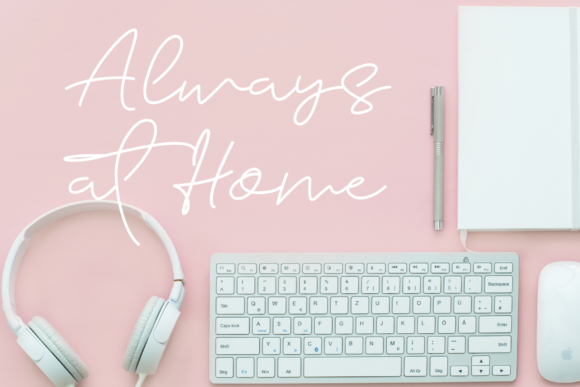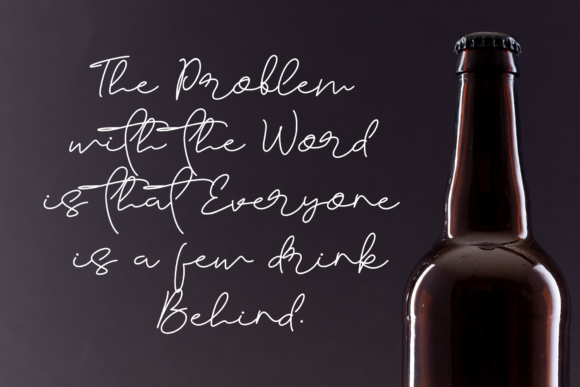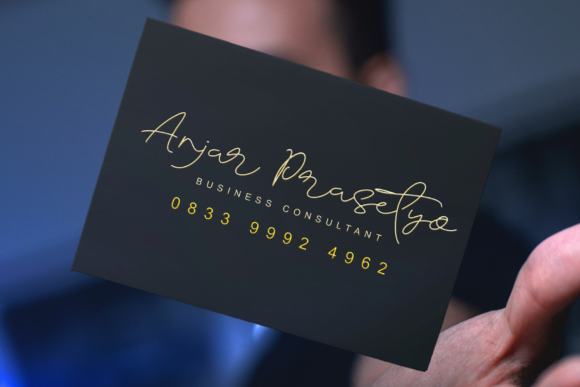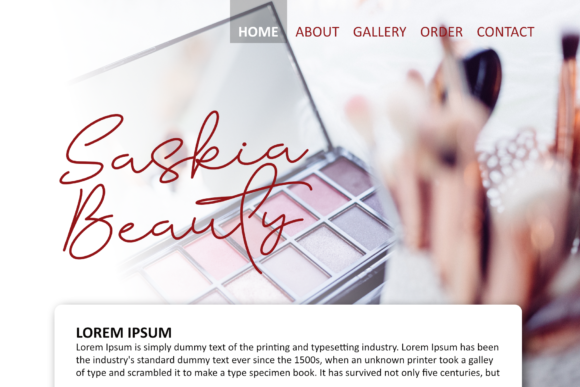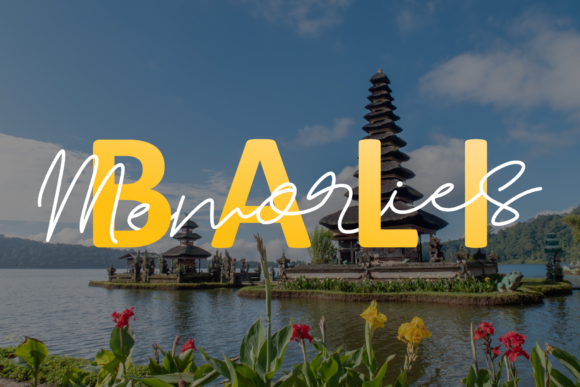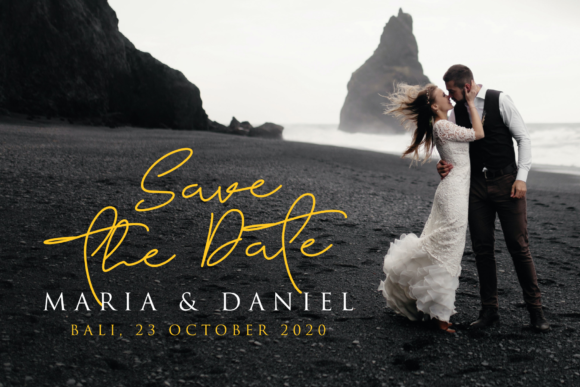
Introduction to Sarttink Signature Font Font
Fonts play a crucial role in design, and the Sarttink Signature Font font is a typeface that brings both character and versatility to any project. Whether you’re working on a branding project, a website, or a print design, the Sarttink Signature Font font offers a unique style that can elevate your work.
Sarttink Signature is a cool signature font.
It features a flowing and modern feel Whether youβre looking for fonts for Instagram or calligraphy scripts for DIY projects, Sarttink Signature will turn any creative idea into a true piece of art.
Key Features of Sarttink Signature Font Font
Why Choose Sarttink Signature Font Font?
The Sarttink Signature Font font is more than just a typeface β it’s a design tool that helps you communicate your message with style and clarity. Its unique character set and versatile design make it suitable for a wide range of applications, from elegant invitations to bold headlines.
With its carefully crafted letterforms and balanced proportions, the Sarttink Signature Font font ensures readability and visual appeal across all mediums.
What makes Sarttink Signature Font font special?
The Sarttink Signature Font font stands out with its unique design, exceptional readability, and versatility across various design applications.